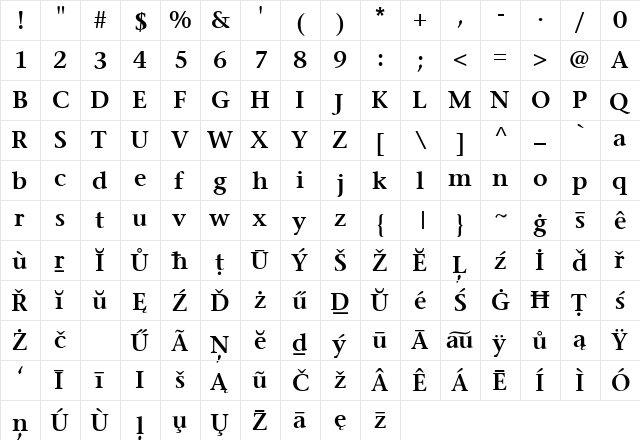
StoneSerif SCIN SmBd v.1 Semibold
Design Context for StoneSerif SCIN SmBd v.1 Typeface
StoneSerif SCIN SmBd v.1 brings classic typographic sensibility to the table — its serifs and measured letterforms reflect centuries of print heritage. Its bold stroke weight gives it real presence on the page.
Pro Tip: Set StoneSerif SCIN SmBd v.1 with slightly loose tracking in headlines to let each letterform's detail read clearly at display sizes.